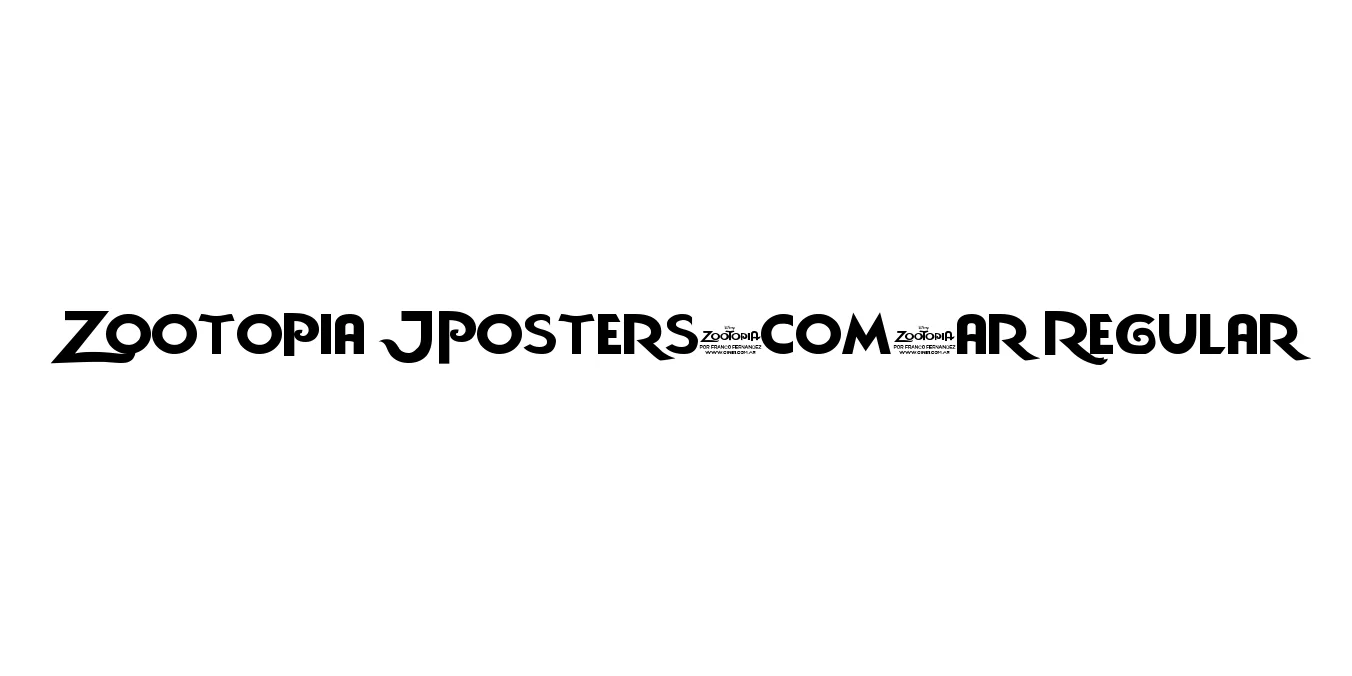
Zootopia JPosters.com.ar Regular
The Zootopia JPosters.com.ar Regular font is a specialized display typeface inspired by the visual identity of the 2016 Disney animated feature film, 'Zootopia.' It was meticulously crafted to emulate the bold, energetic lettering seen in the film's promotional materials and title sequences. This font serves as a tribute to the movie's urban-animal theme, providing fans and digital artists with a tool to recreate the aesthetic of the Zootopia universe in their own creative projects.
From a technical standpoint, the font features a heavy visual weight and rounded terminals that soften its massive presence. The x-height is remarkably high, which maximizes the impact of the letterforms but restricts their use to large-scale headings and logotypes. The letterforms are characterized by thick, chunky strokes and tight internal counters, which require careful tracking to maintain clarity. Its organic, slightly irregular structure mimics the hand-drawn quality of high-end animation branding, offering a playful yet professional look for display purposes.
Zootopia JPosters.com.ar Regular Best Uses
Creating high-impact headings for posters and banners.
Perfect for digital illustrations related to the Zootopia franchise.
Excellent for birthday invitations or signage for children's parties.
Ideal for attention-grabbing thumbnails and story overlays.